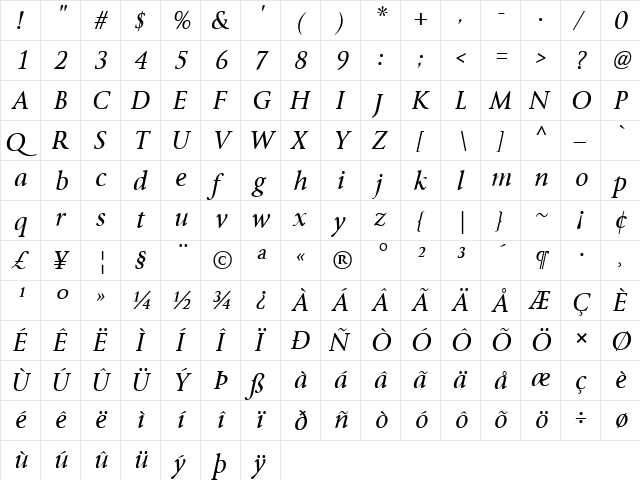
Byington Italic
Design Context for Byington Typeface
Byington is a composed and adaptable typeface that performs quietly and consistently across a wide range of design contexts. The dynamic lean of this cut emphasises speed and emphasis in any layout.
Pro Tip: Use Byington for emphasis, pull quotes, and subheadings where its slanted energy can add rhythm to the layout.